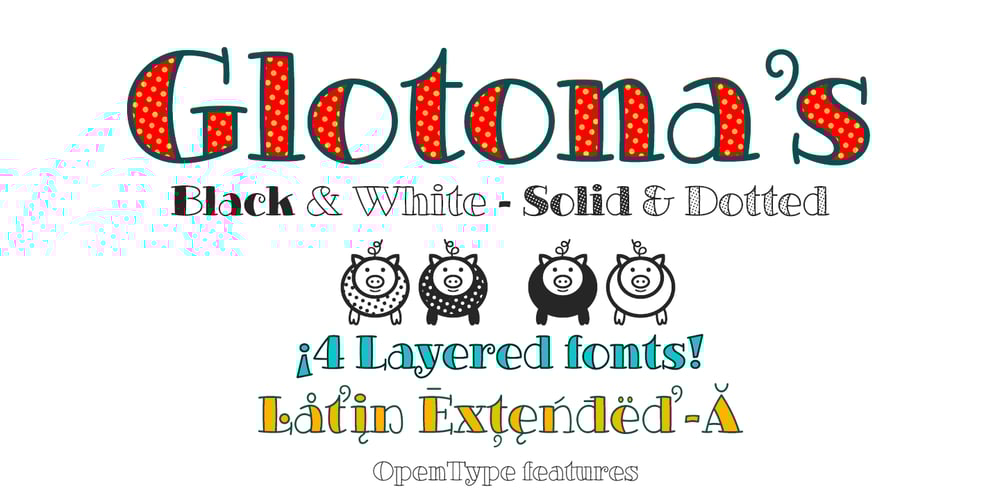
Glotona Font Family was designed by Fernando Haro and published by deFharo. Glotona contains 4 styles and family package options. Glotona’s Black & White are four modernist typographies written by hand and combinable with each other by layers to create multi-colored typographic headlines. Glotona is my tribute to Bodoni fonts, revolutionary fonts when they appeared in the S XVIII and still in force today. The great contrast between antlers, give foot to the design maintaining the elegance of the modernist typefaces, the manual writing and the roundness of the serif and antlers bring freshness and empathy, the careful configuration of the kerning and the proportions give maximum readability to these fonts.